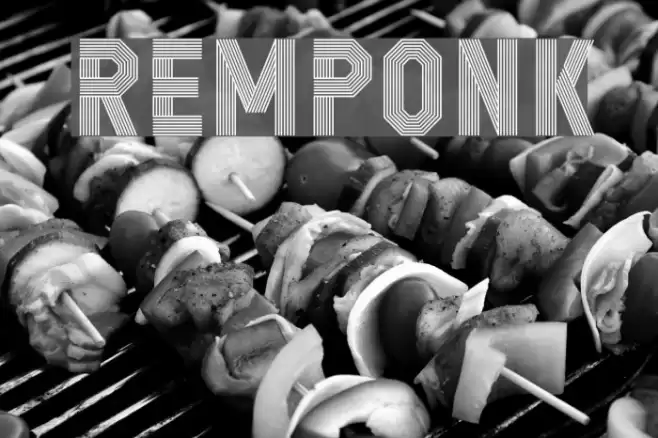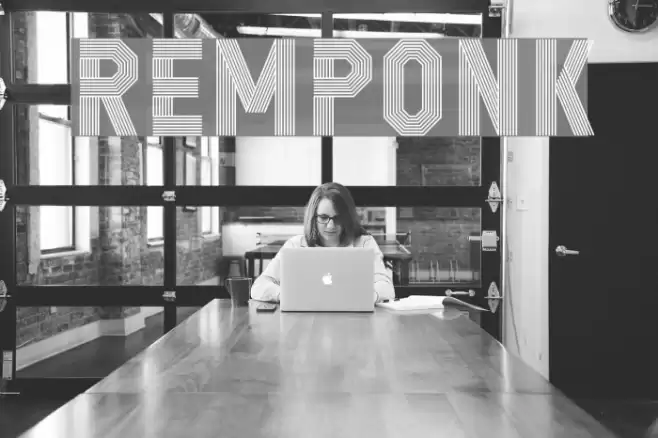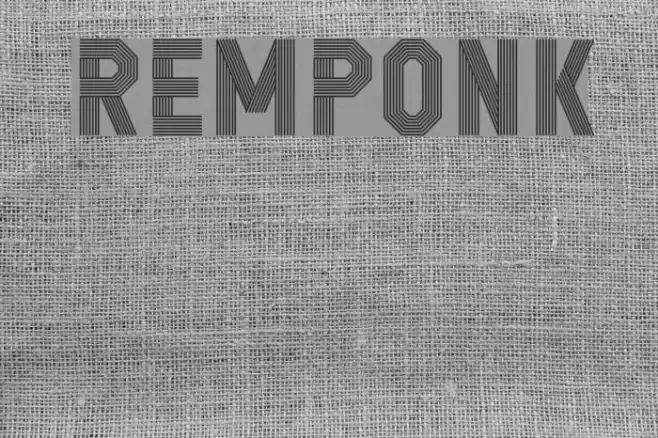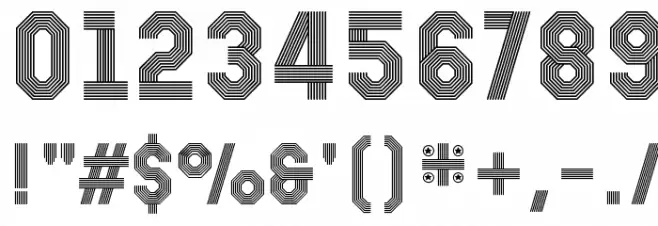
REMPONK Font
REMPONK Description
This font features a unique, layered design with multiple parallel lines forming each character, creating a striking visual effect. The geometric and structured appearance gives it a modern and futuristic feel. Each letter and number is composed of several thin lines that run parallel to each other, creating a sense of depth and dimension. The font maintains a consistent thickness throughout, with sharp angles and clean edges that enhance its bold and eye-catching style. The special characters follow the same design principles, ensuring a cohesive look across all elements.
A modern, layered font with parallel lines creating a bold, geometric style from Uncategorized fonts.
- Proposed Projects: Ideal for futuristic branding, tech-related projects, posters, and digital media that require a standout, modern aesthetic.